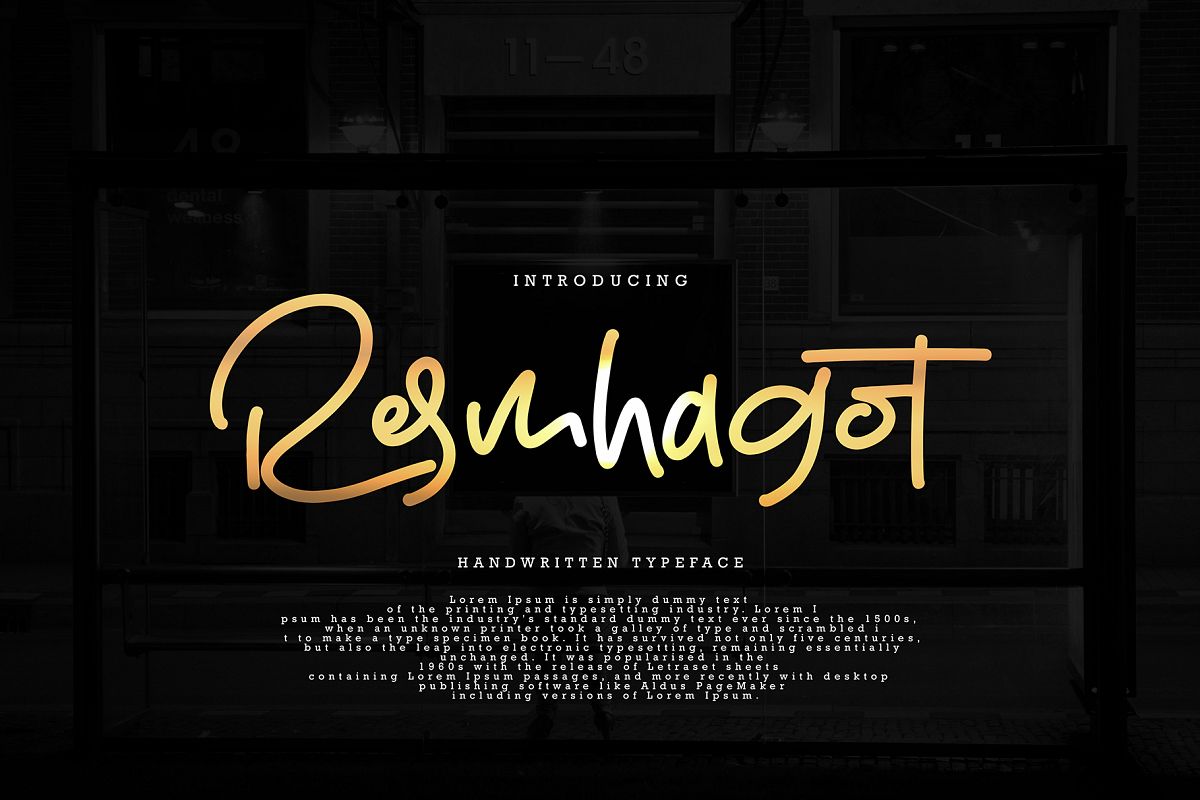
Resmhagot
Resmhagot font with new style handwritten, this font will perfect for many different project ex: quotes, logo, blog header, poster, banding, fashion, apparel, letter, invitation, stationery, etc...